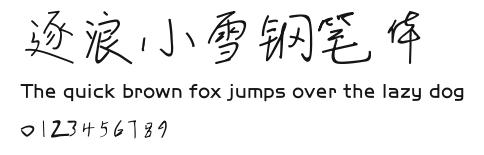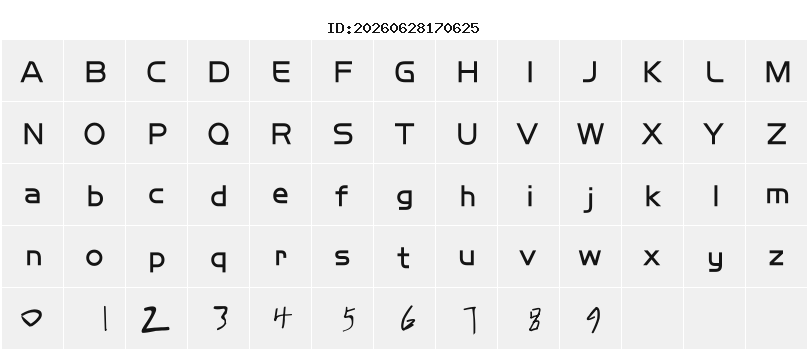
逐浪小雪钢笔体 Preview
• Font Name: 逐浪小雪钢笔体
• Font Style: 常规
• Font ID: 逐浪小雪钢笔体
• Full Font Name: 逐浪小雪钢笔体
• Version: Version1.00 20160301
• PostScript Name: Zoomlaxiaoxue-A020
• Character Count: 7701
• Designer: hx008Com
• Manufacturer: Shanghai ZoomlaCMS co.,LTD
About 逐浪小雪钢笔体.otf
逐浪小雪钢笔体.otf is a modern, elegant sans-serif font designed for ultimate readability and visual harmony. Perfect for branding, headlines, web design, and print materials.